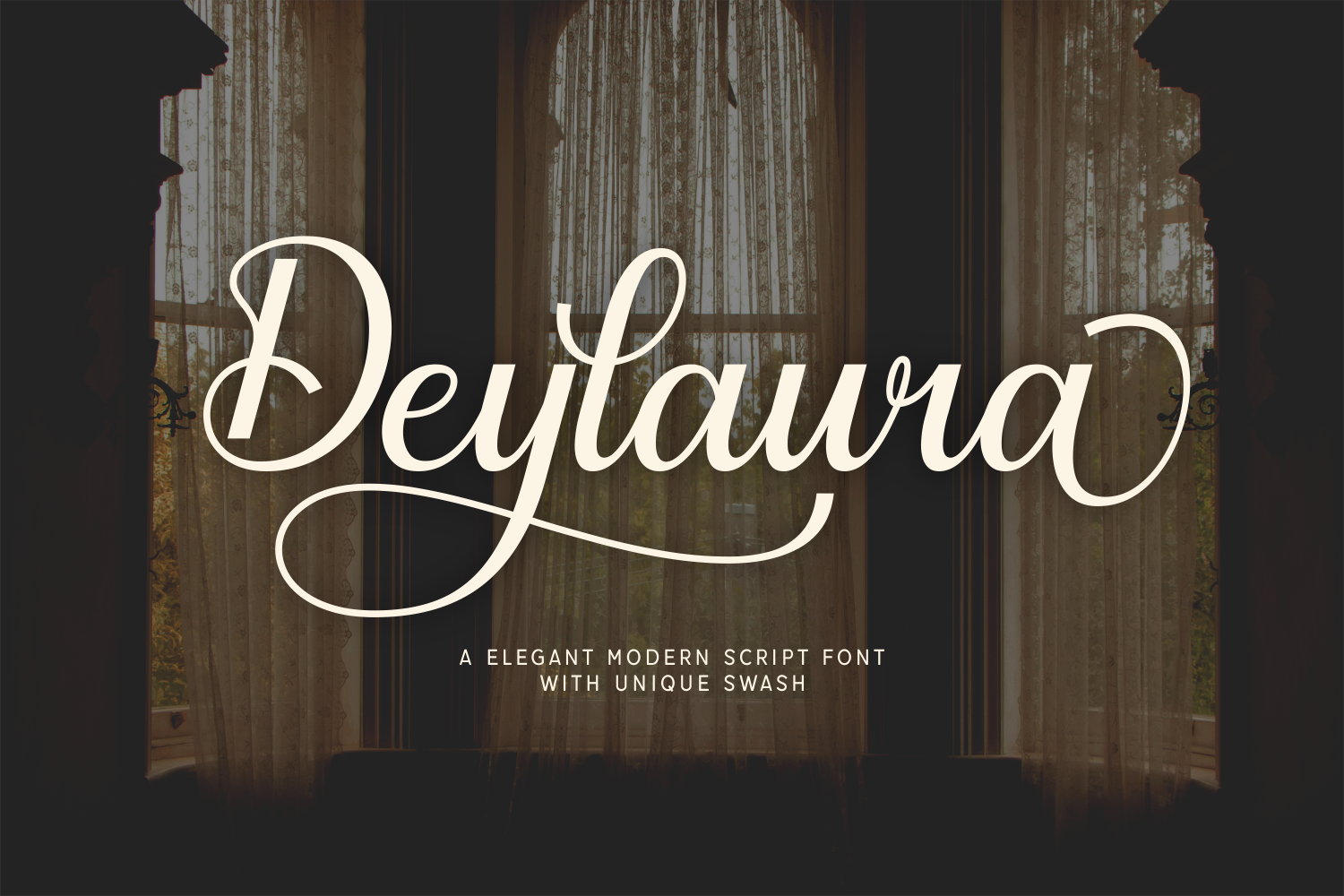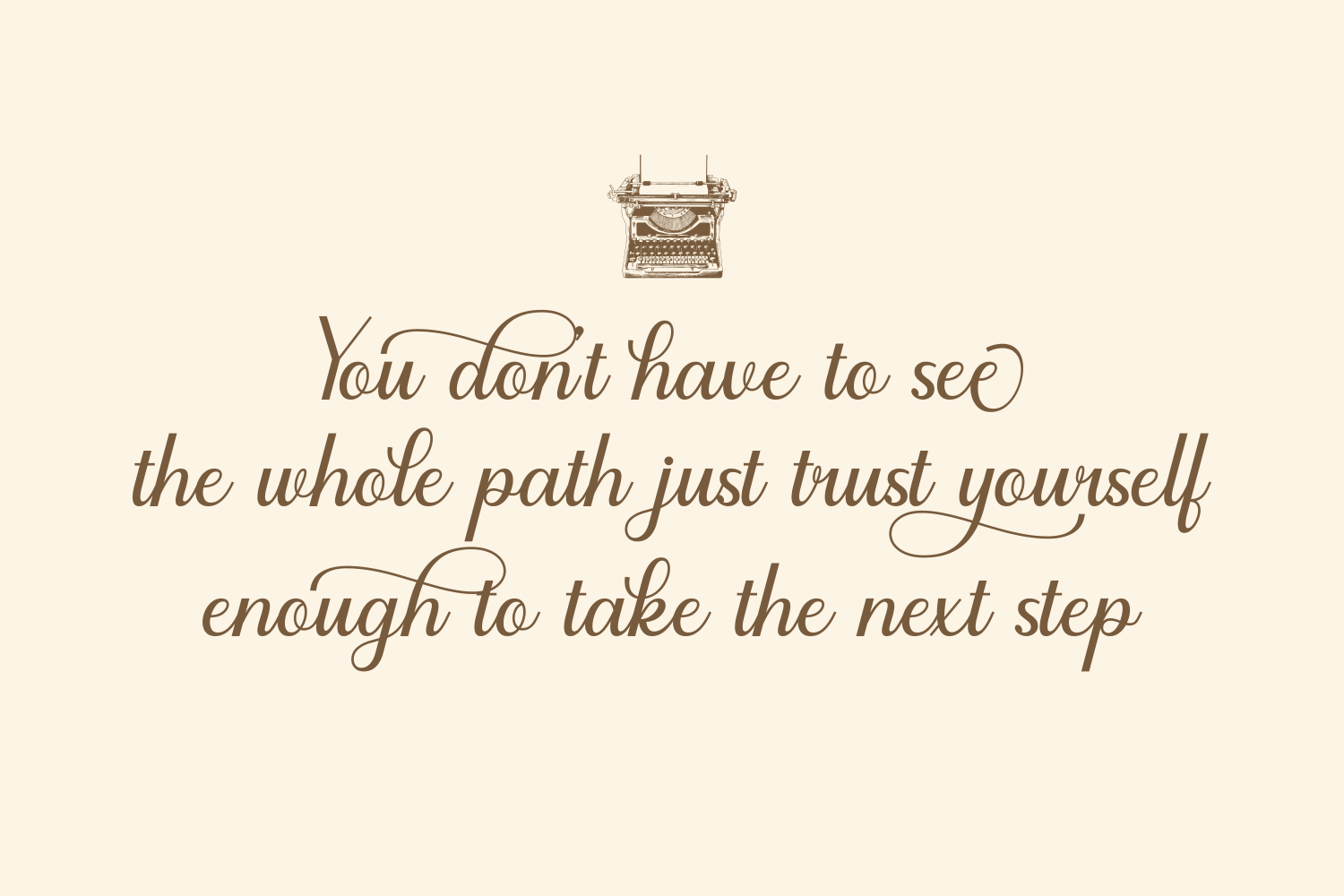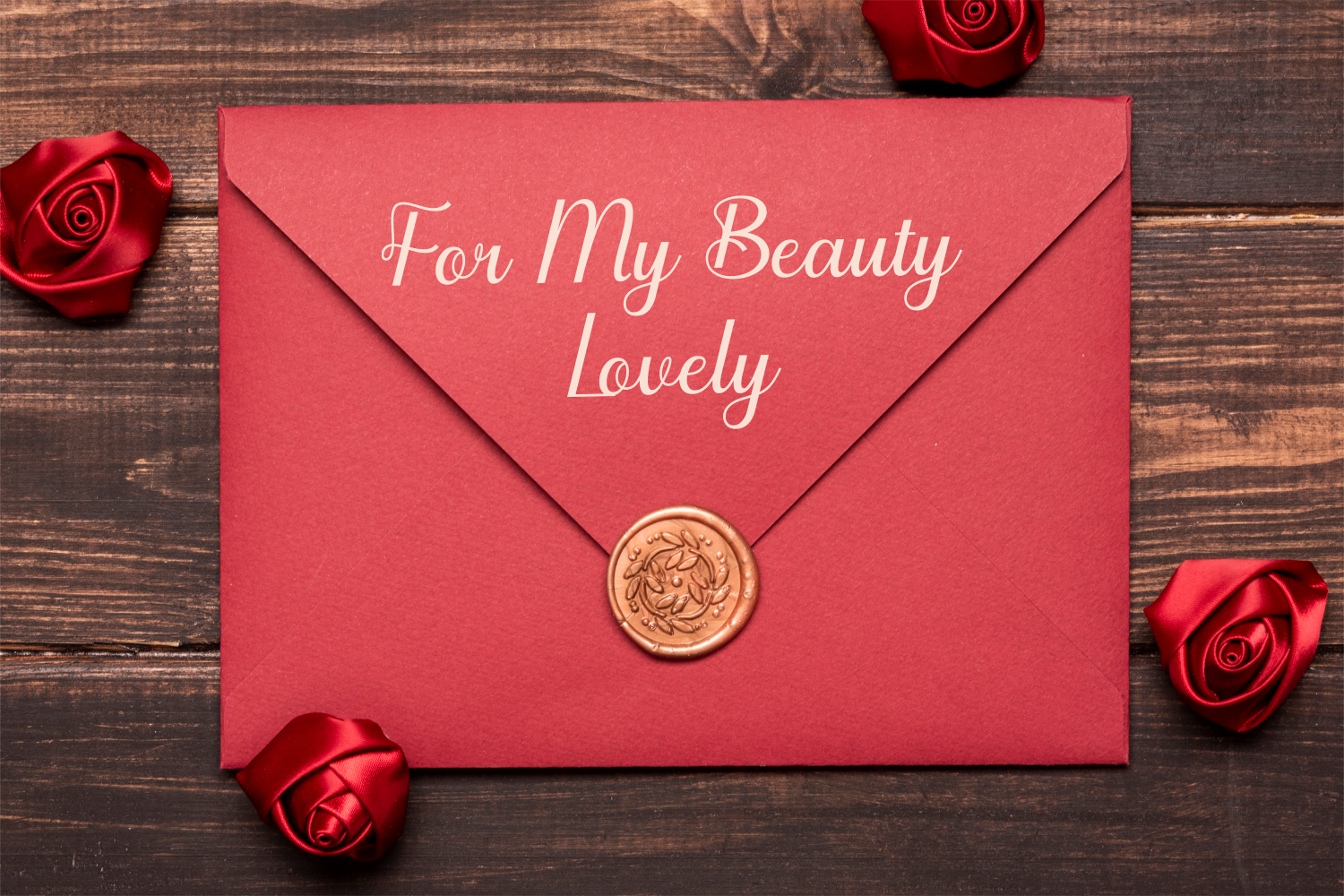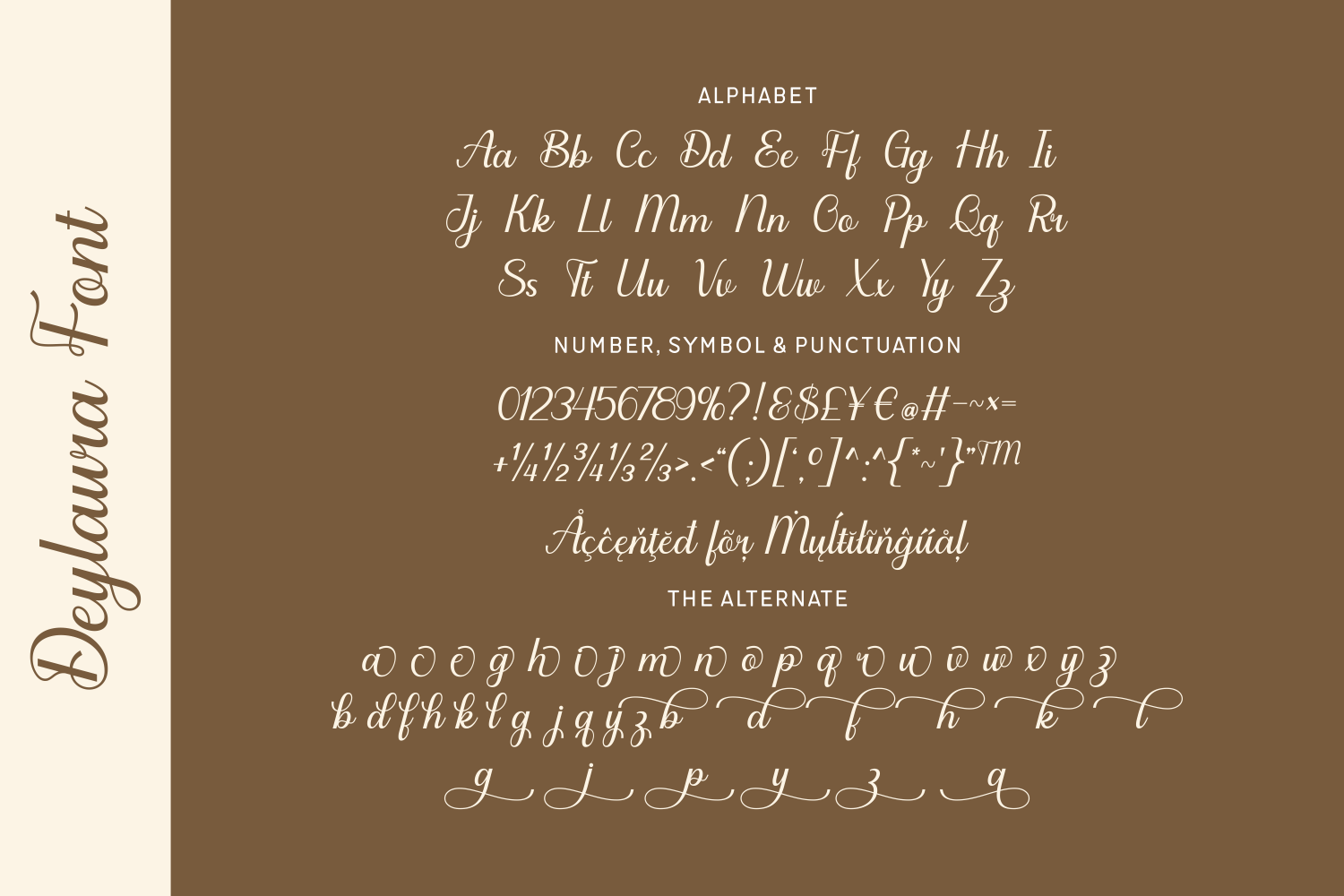
Deylaura is a sophisticated modern script font featuring refined strokes and sweeping swashes that exude luxury and elegance. Ideal for upscale branding, wedding stationery, editorials, and high-end packaging, this font combines classic calligraphy with a fresh, contemporary twist.